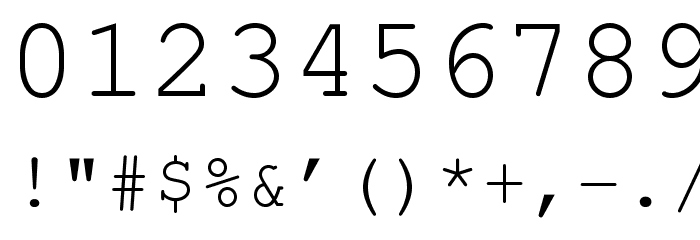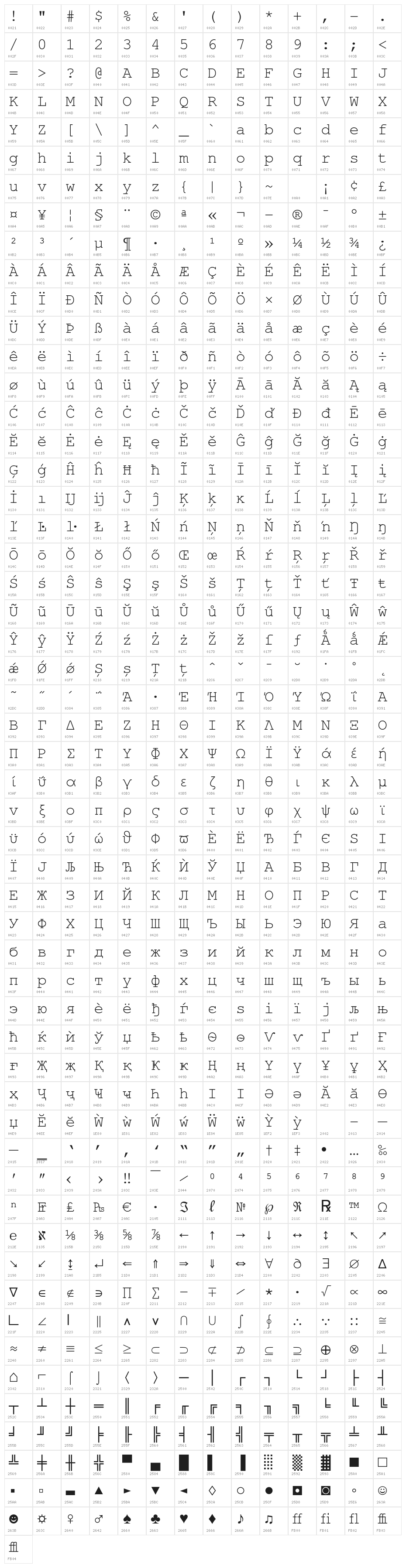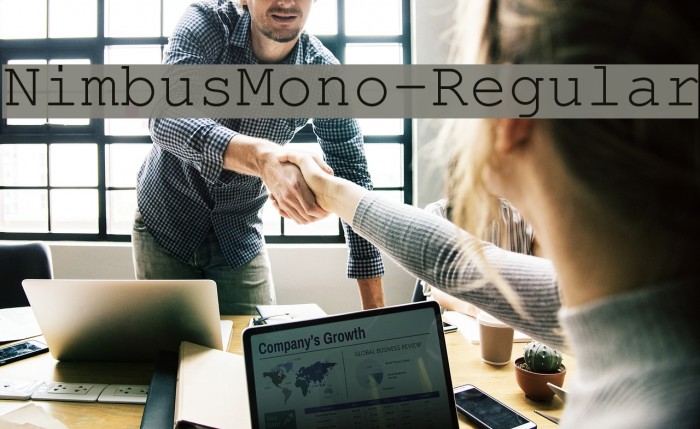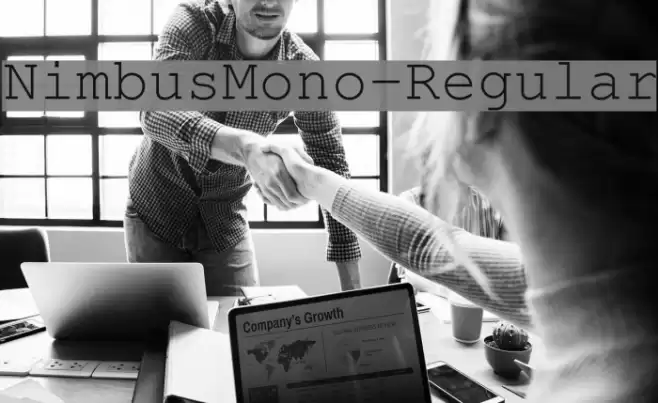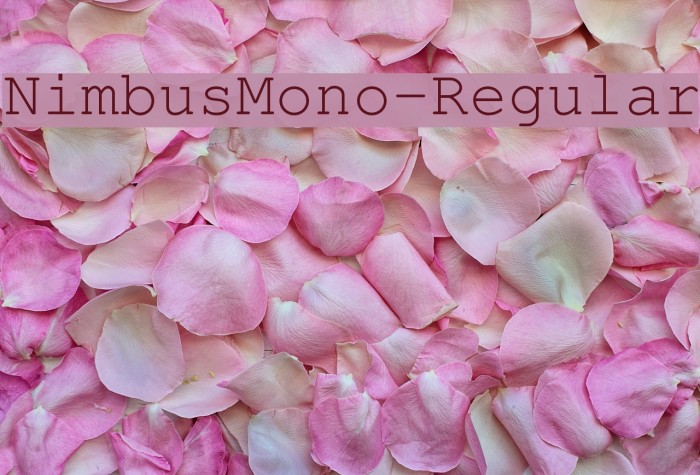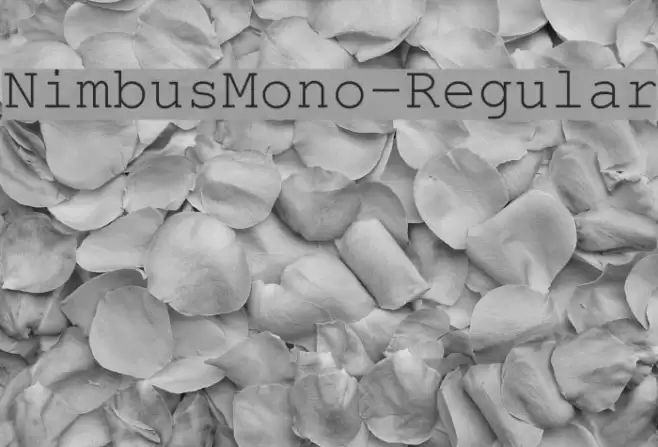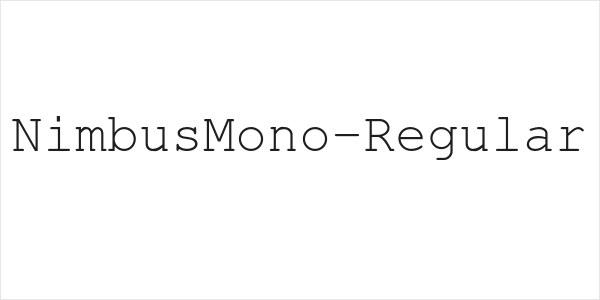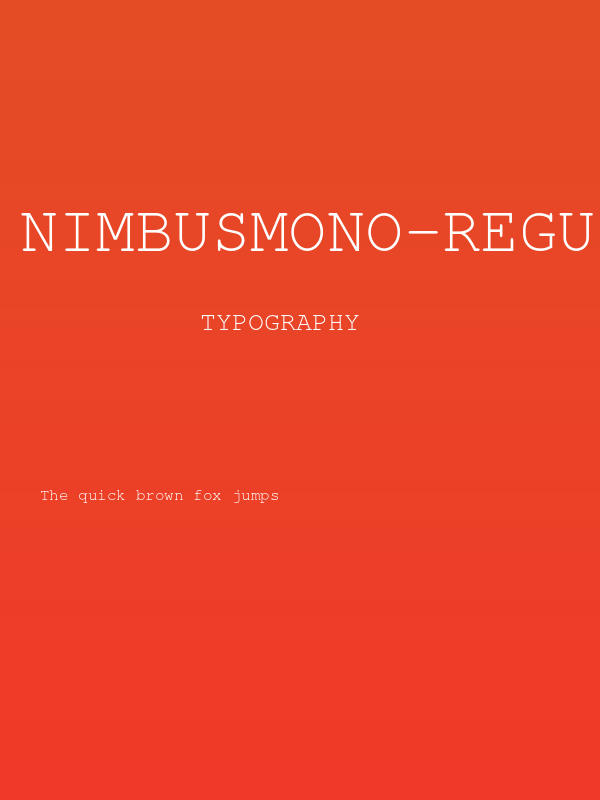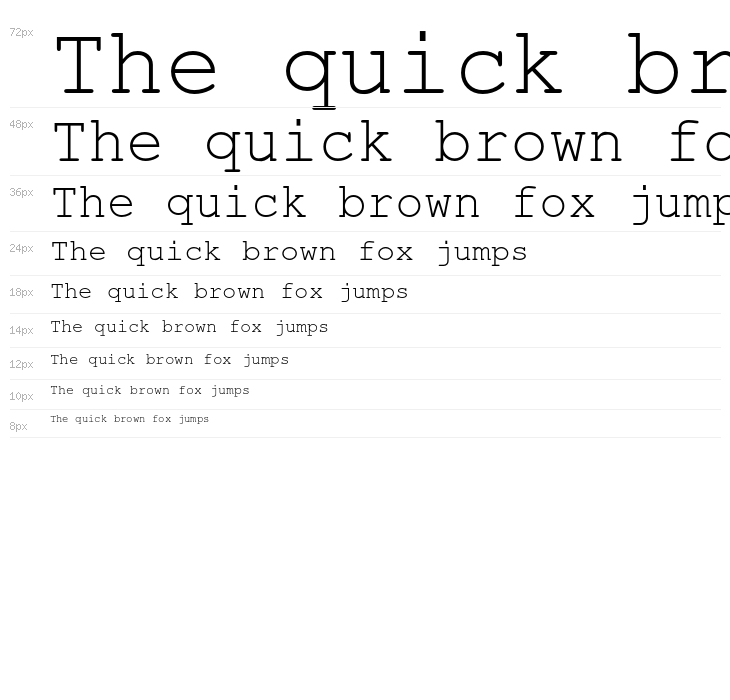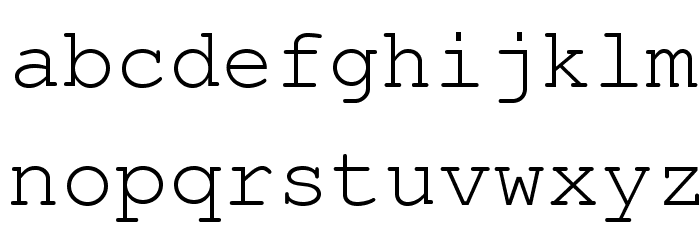
This typeface is a monospaced font characterized by its uniform character width, which provides a clean and organized appearance. The letters are evenly spaced, making it ideal for coding and tabular data. Its design features a classic serif style with slight curves and a mechanical feel, offering a blend of traditional and modern aesthetics. The font maintains a consistent stroke weight throughout, ensuring readability and clarity. Its simplicity and precision make it suitable for technical documents and environments where alignment is crucial.
| Use Case | Coding, Technical documents, Tabular data |
| Proposed Projects | Ideal for coding, technical documents, tabular data, and environments requiring precise alignment. |